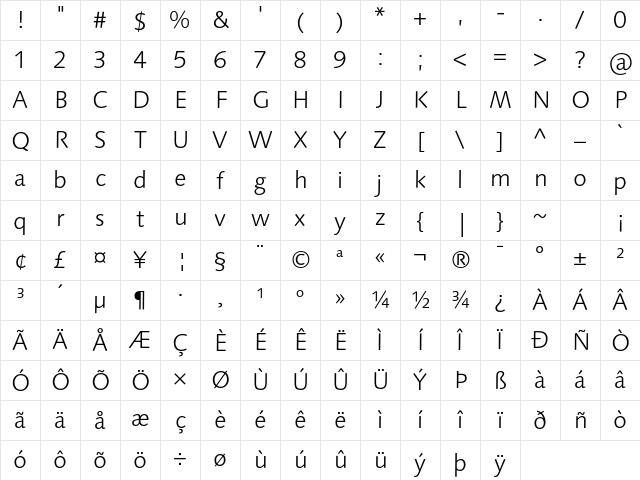
LinotypeSyntax Light
Design Context for LinotypeSyntax
LinotypeSyntax is a composed and adaptable typeface that performs quietly and consistently across a wide range of design contexts. Its slender proportions lend an understated elegance to any composition.